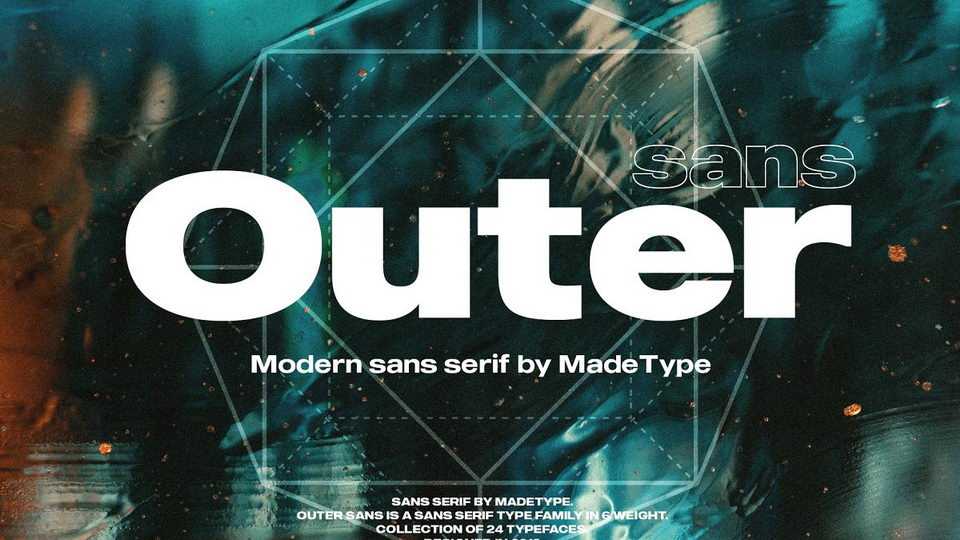
Download MADE Outer Sans typeface, a modern font family of 24 typefaces. The Outer Sans fonts will perfect for many project: fashion, invitations, music cover, game poster, cinema and more.
Designer: Made Type